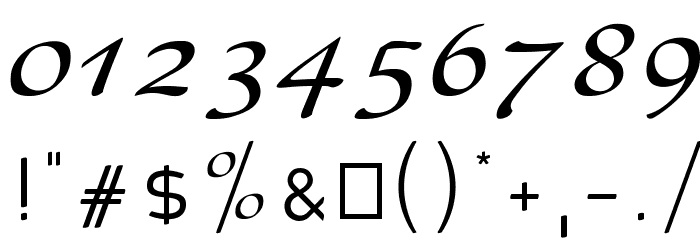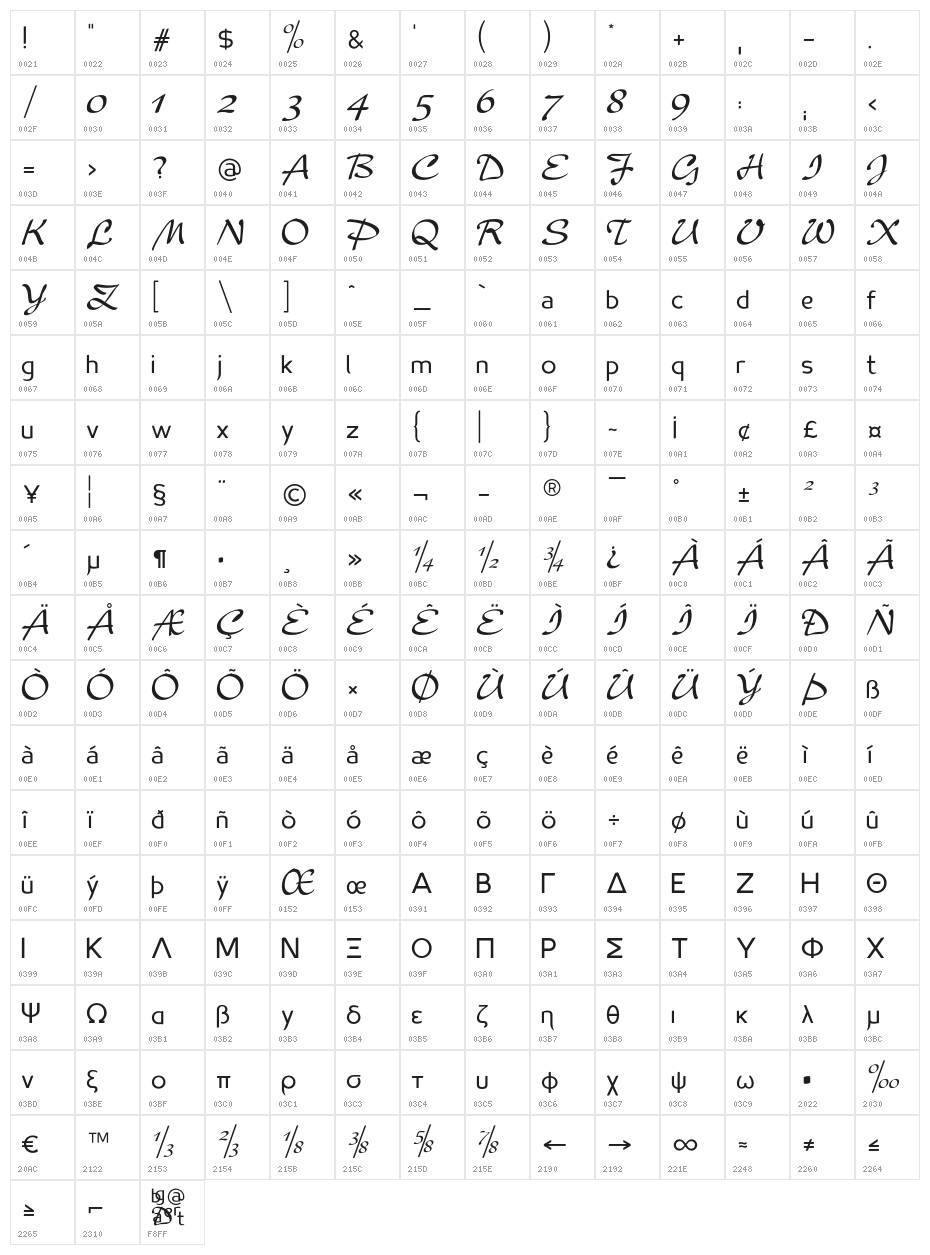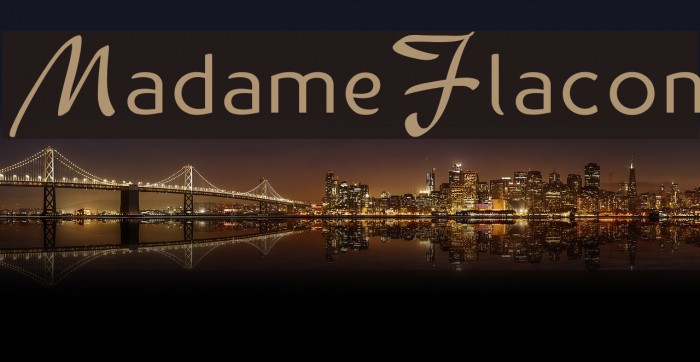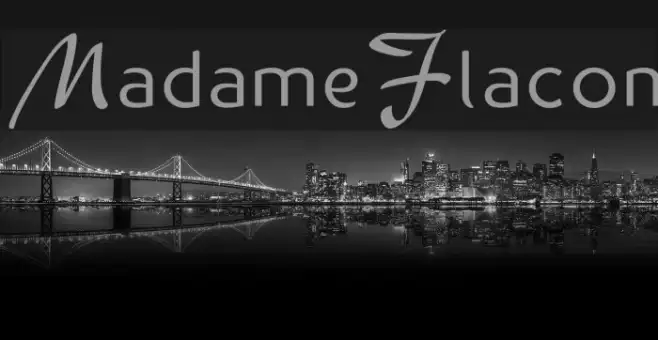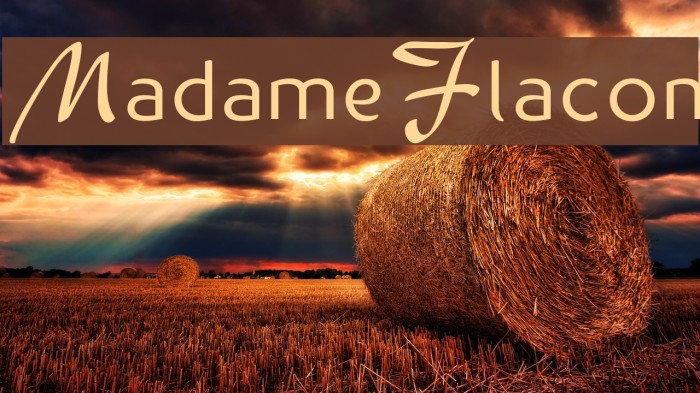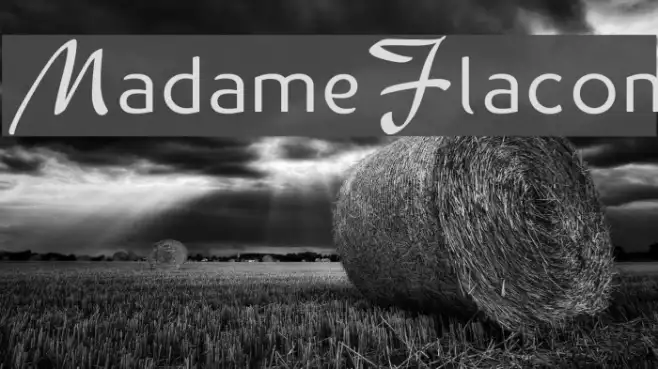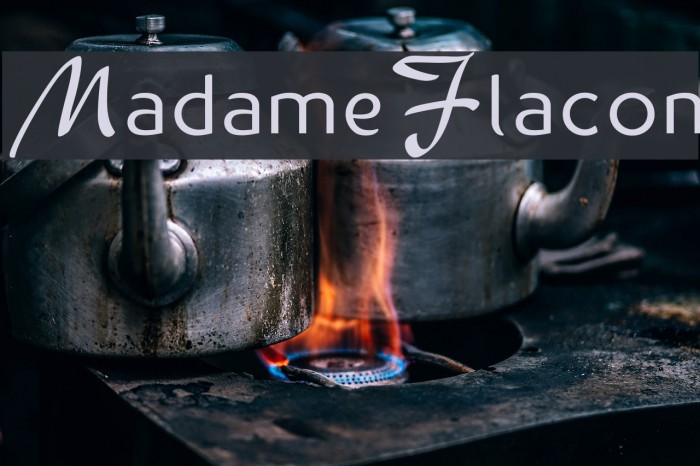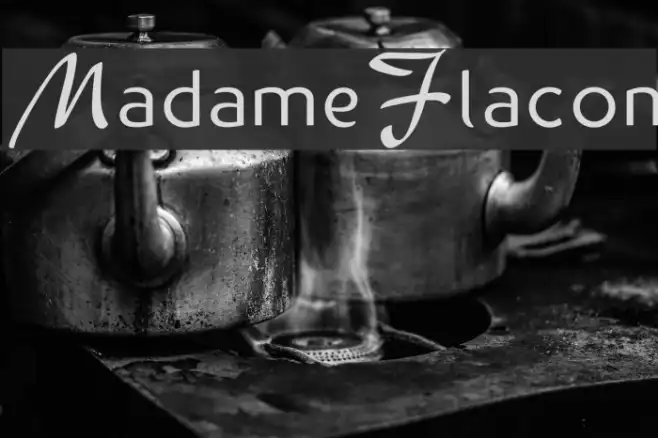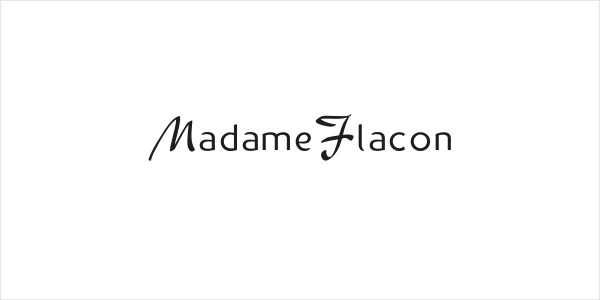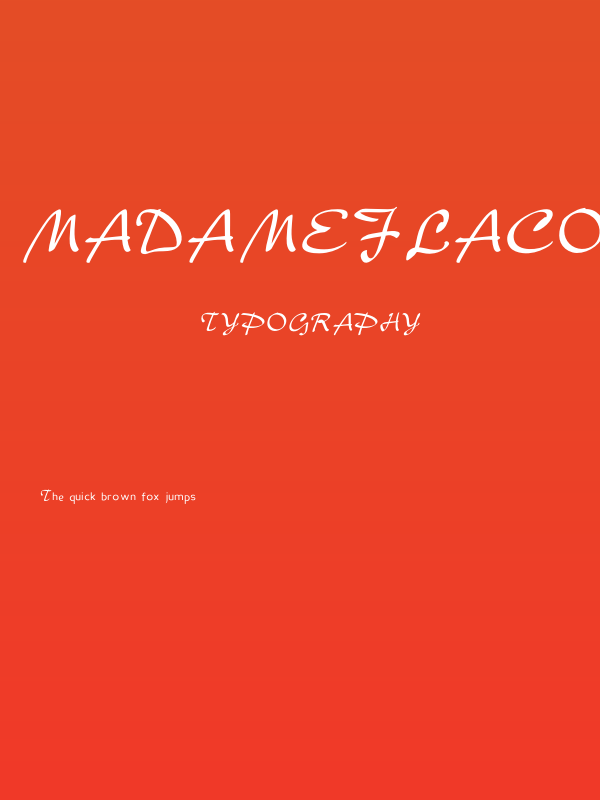
MadameFlacon Font
MadameFlacon Description
This font exhibits a graceful and elegant style, characterized by its flowing and cursive-like uppercase letters, which give it a sophisticated and artistic appearance. The lowercase letters are more straightforward, maintaining a clean and modern aesthetic that complements the ornate uppercase. The numerals are designed with a slight slant, adding to the dynamic feel of the font. Special characters are crafted with attention to detail, ensuring consistency with the overall design. This font balances decorative elements with readability, making it versatile for various applications.
| Overall Style | Elegant and Artistic |
| Proposed Projects | Ideal for wedding invitations, luxury branding, elegant packaging, and artistic posters. |